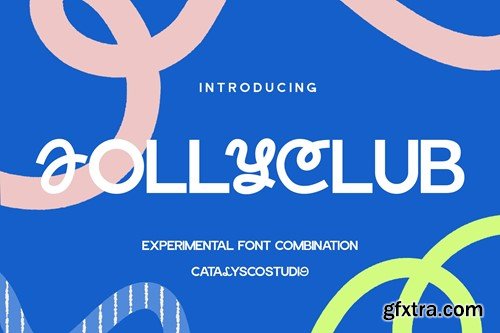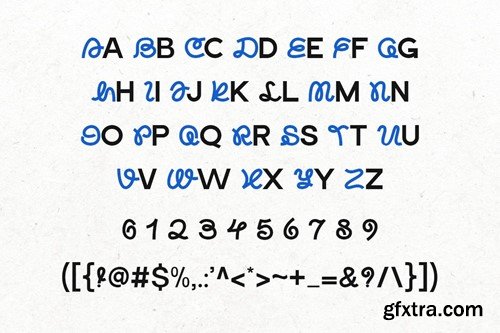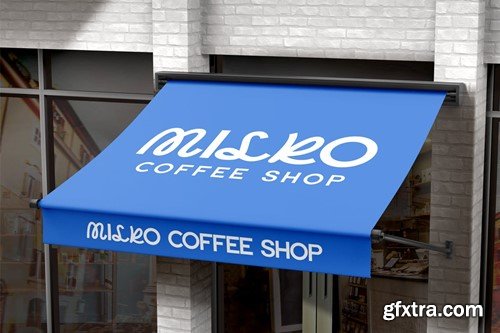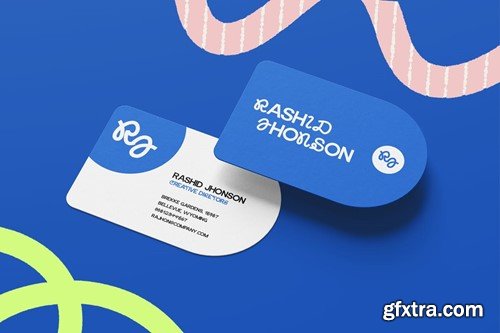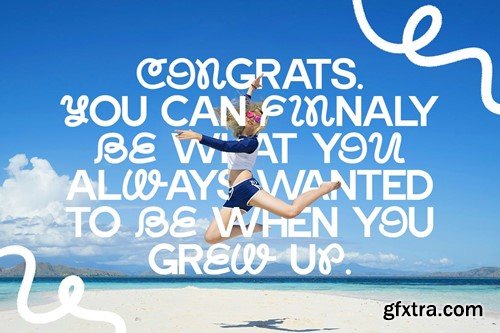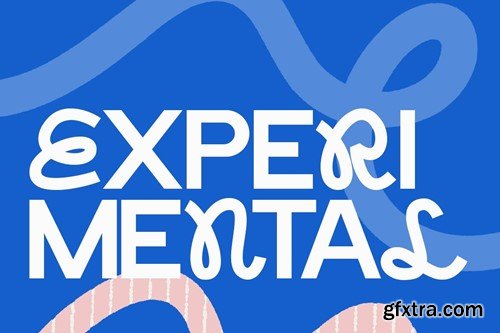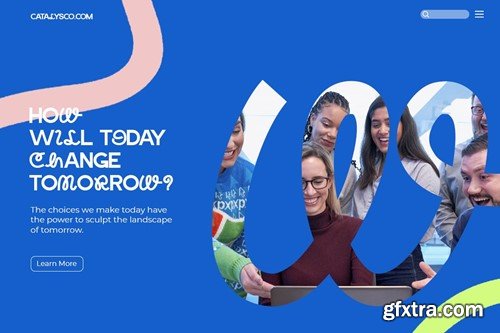
Jolly Club Experimental Font Combination XRCTCMZ
Jolly Club Experimental Font Combination
Jolly Club Experimental Font Combination typeface excellent used for the manufacture quote text, logotype, header magazine, and many more.
• Uppercase & Lowercase
• Ligatures & Alternate
• Numeral & Punctuations